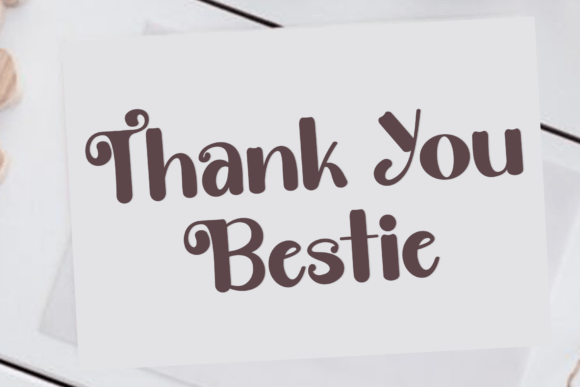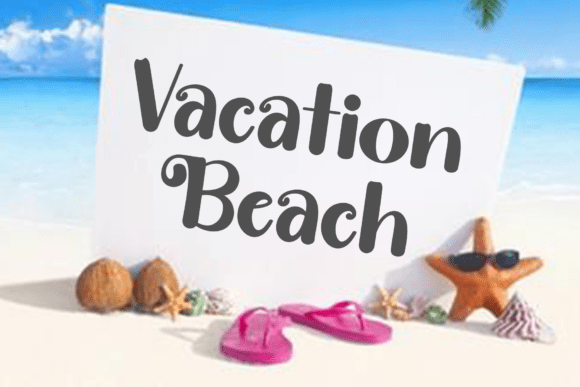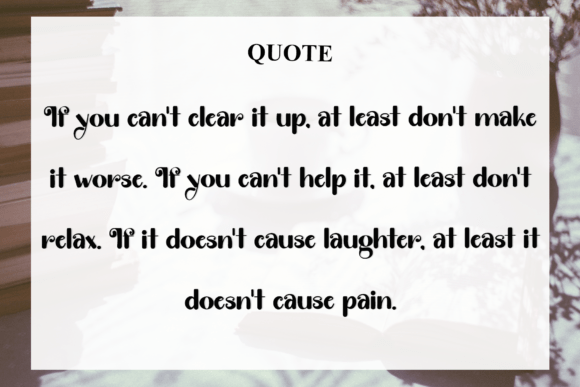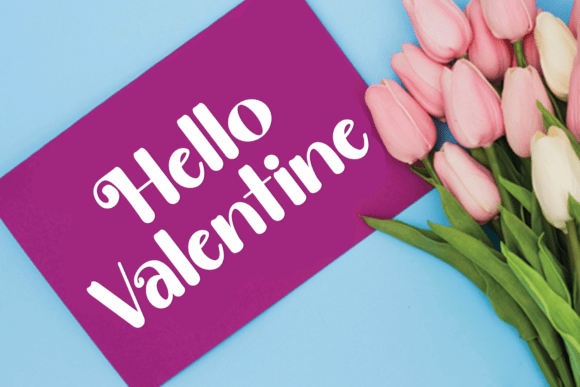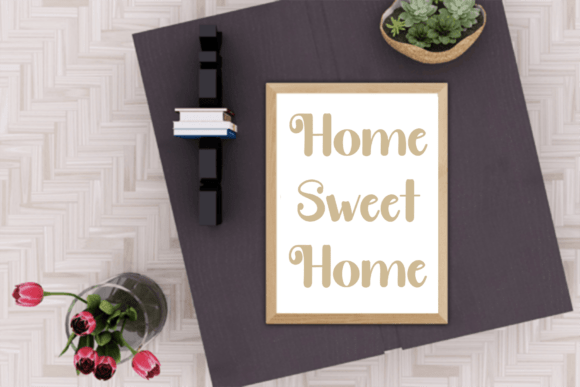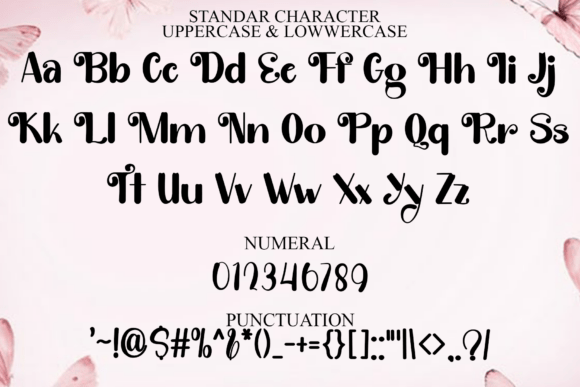
Unlock the Magic of Handmade Typography
Have you ever been stuck on a design project, searching for the perfect font to capture the essence of your message? For many creatives, this is a familiar feeling. You envision a font that exudes warmth, elegance, and a touch of personality – a font that speaks directly to the heart of your audience. This is where the Dream ToShine Font comes in, a beautiful blend of modern and handmade typography that’s sure to elevate your designs.
Whether you’re designing a book cover, a brand identity, or a social media post, the Dream ToShine Font delivers a polished yet deeply personal visual presence that’s both modern and undeniably charming. Its balanced proportions and rhythmic flow make it an exceptional choice for any creative project.
Dream Toshine Font Key Features
- Unique Characteristics: The font features a unique blend of modern and vintage elements, with intricate details and subtle textures that add a touch of elegance to any design.
Dream Toshine Font Review
I recently had the chance to work with the Dream Toshine Font, and I must say it’s an interesting combination of styles.
- Unique blend of cursive and sans-serif elements: The font’s mix of soft, flowing lines and geometric shapes creates a visually appealing contrast.
- High level of legibility: Despite its elaborate design, Dream Toshine remains easy to read in various font sizes and line lengths.
- Good for creative projects: The font’s playfulness and whimsy make it a great fit for projects that require a touch of personality, such as advertisements, posters, or social media graphics.
- Limited versatility: Dream Toshine may not be the best choice for formal documents, body text, or anything that requires a more professional tone.
- Some characters may be tricky to read: Certain letters or symbols may blend together, potentially causing confusion, especially in smaller font sizes.
Dream Toshine is a great addition to any designer’s toolkit, offering a distinctive look that’s perfect for creative projects. While it may not be suitable for all types of content, its unique blend of styles and high legibility make it a worthwhile option for those looking to add some personality to their designs.
Practical Application Guide for Dream Toshine Font
Tips: Use Dream Toshine Font for creative and artistic projects, such as invitations, posters, and social media graphics.
Tips: Use Dream Toshine Font for creative and artistic projects, such as logos, icons, and graphics.
Tips: Use Dream Toshine Font for creative and artistic projects, such as presentations, reports, and documents.
Dream Toshine Font is ideal for:
- Creative and artistic projects.
- Branding and logos.
- Social media graphics.
- Invitations and posters.